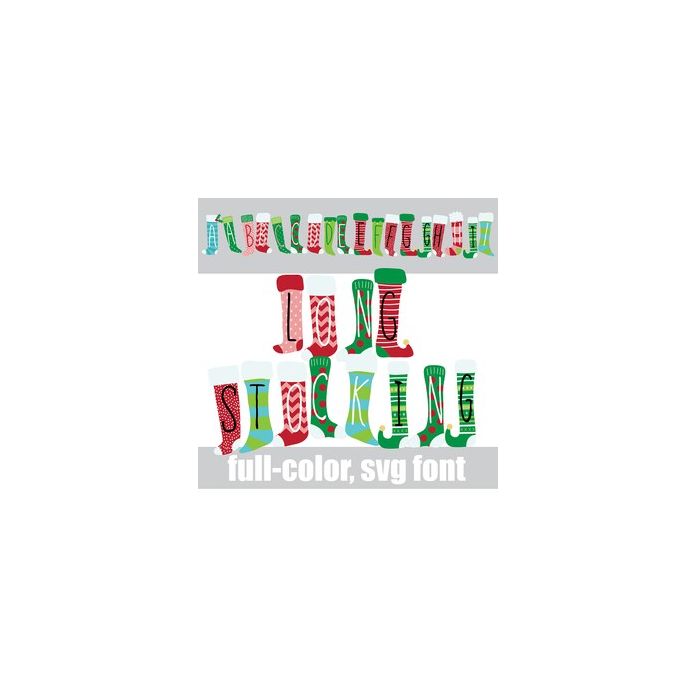
This full-color font features simple hand-written lettering on long Christmas stockings. There is an alt case w/ additional colors you can access through your system or Silhouette's glyph map.